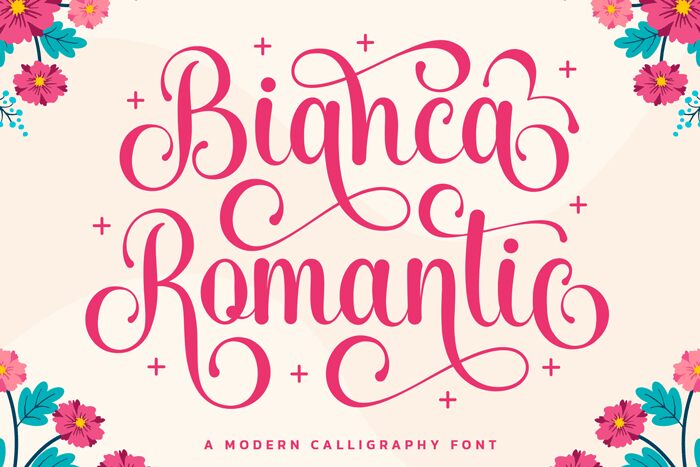
Bianca Romantic
Bianca Romantic, crafted by acclaimed designer Hoperative, is a captivating calligraphy font that adds an air of elegance and romance to any project. With its semi-condensed width, this font strikes the perfect balance between sophistication and readability. Ideal for wedding invitations, love letters, or any design seeking a touch of poetry, Bianca Romantic effortlessly evokes emotions of love and tenderness. Its graceful strokes and flowing curves make it equally suitable for branding materials or fashion magazines that aim to convey a sense of refinement and grace. Let Bianca Romantic be the muse for your next enchanting project.